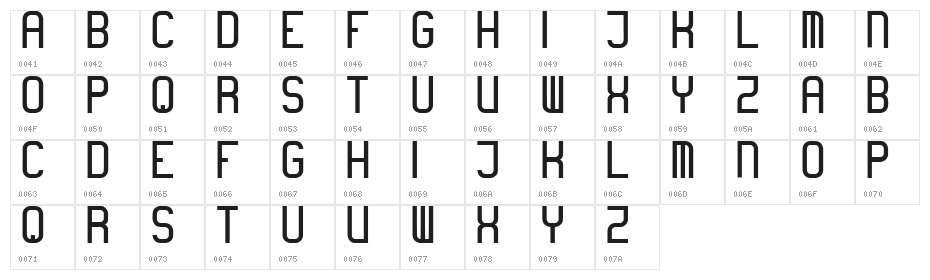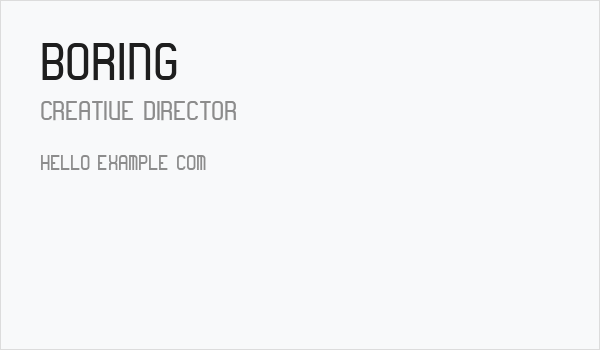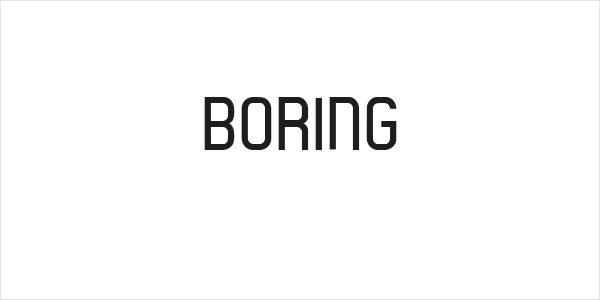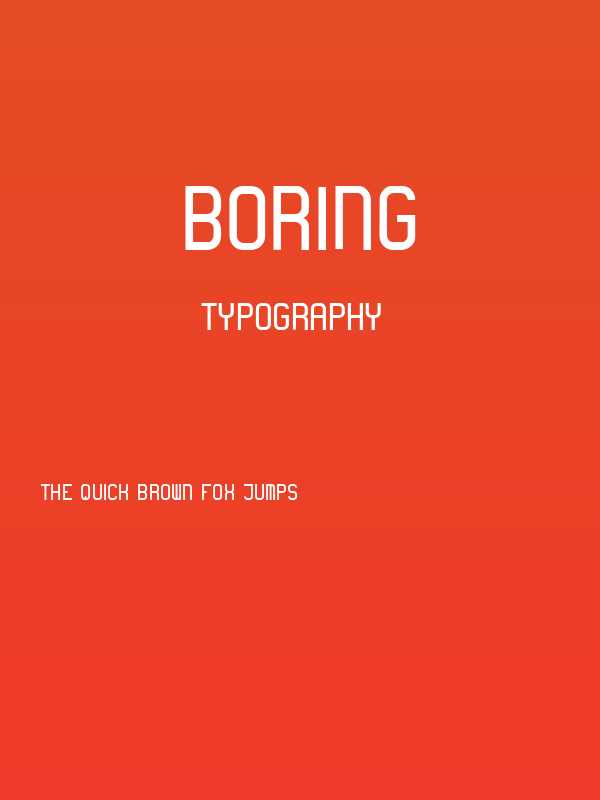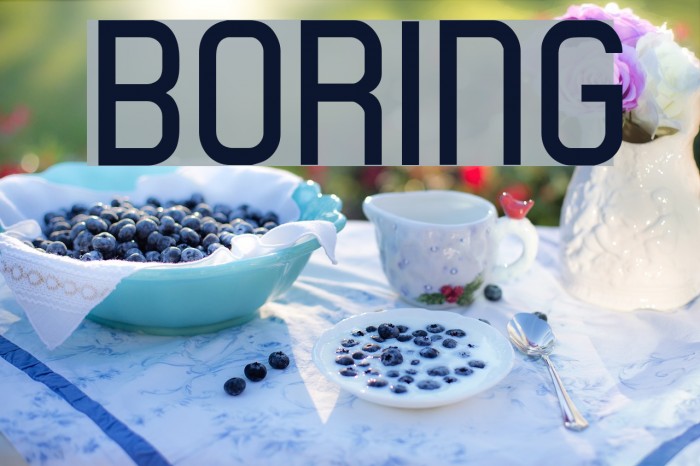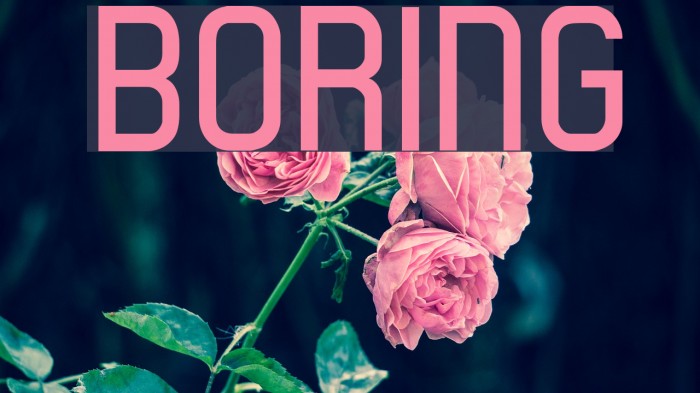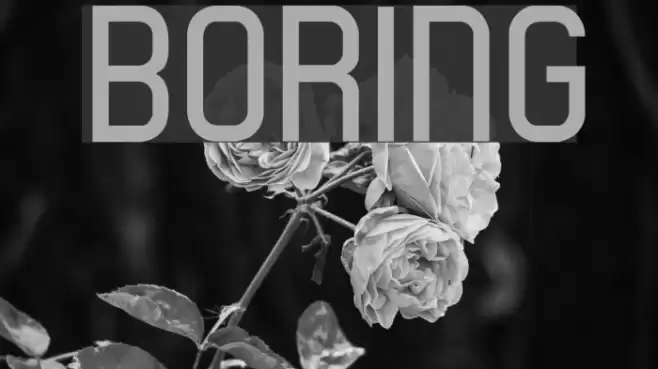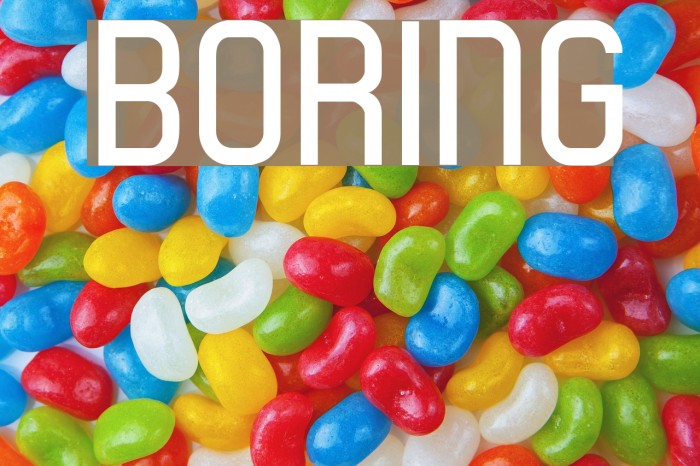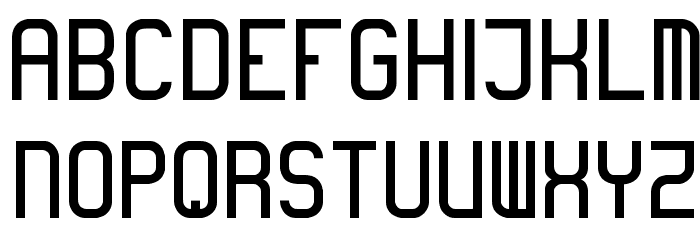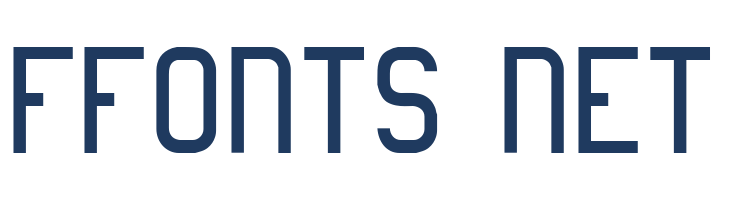
boring Font
boring Description
This font features a modern and geometric design with a distinctively bold and structured appearance. The characters are formed with consistent stroke widths, creating a uniform and cohesive look. The uppercase letters are particularly striking, with a squared-off style that emphasizes clarity and readability. The font's design is both functional and stylish, making it suitable for a variety of applications. Its clean lines and balanced proportions give it a contemporary feel, while the geometric elements add a touch of uniqueness. This font is ideal for projects that require a strong visual impact and a modern aesthetic.
| Proposed Projects | Ideal for branding, headlines, posters, and digital media where a modern and impactful look is desired. |